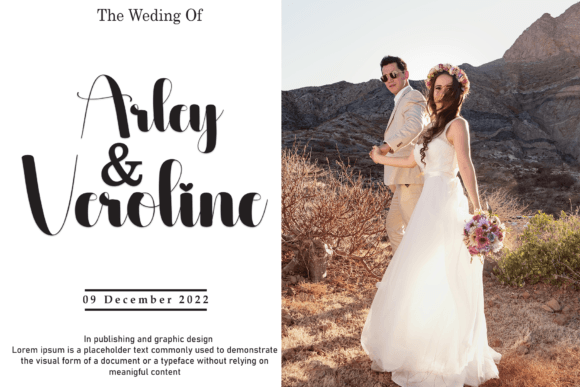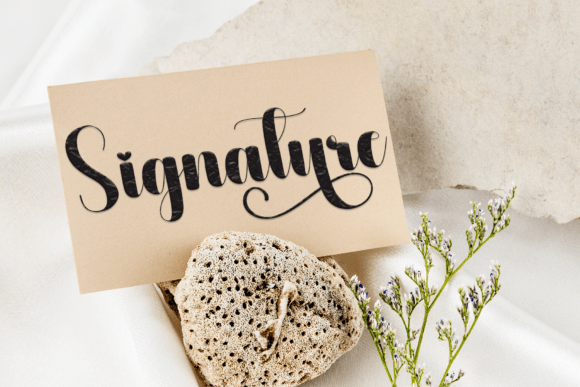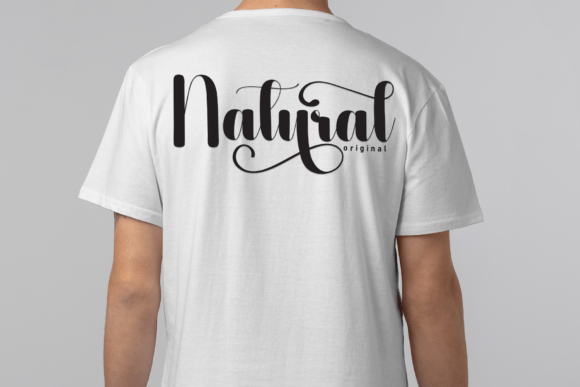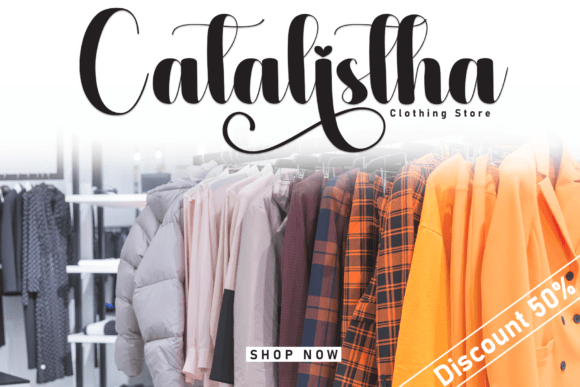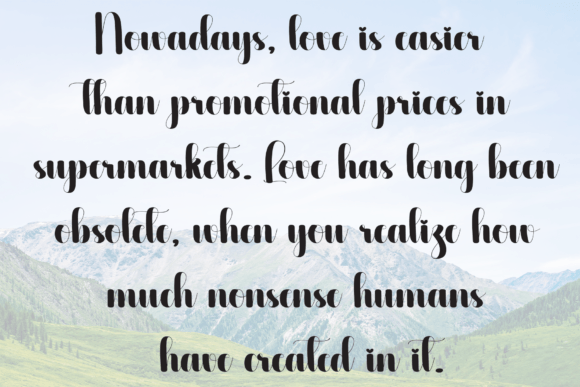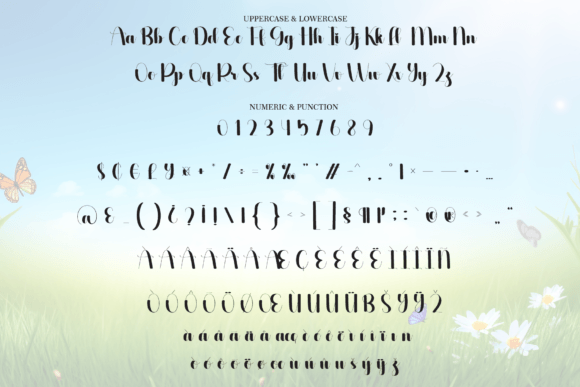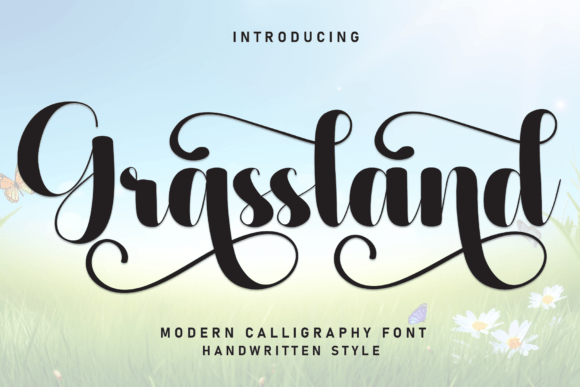
Discover the Elegance of Grassland Font: A Timeless Choice for Your Designs
Are you on the lookout for a font that adds a touch of elegance and sophistication to your projects? Look no further than the Grassland Font, a beautiful, flowing handwritten font that is sure to capture your heart. With its incredibly distinct and timeless style, Grassland Font is the perfect choice for designers and crafters who want to create spectacular designs that stand out from the crowd.
What is Grassland Font?
Grassland Font is a carefully crafted handwritten font that exudes elegance and refinement. Its flowing lines and curves create a sense of movement and fluidity, making it perfect for a wide range of design projects, from wedding invitations and branding materials to social media graphics and more. The font’s unique and timeless style is sure to add a touch of sophistication to any design, making it a great choice for designers who want to create something truly special.
Key Features of Grassland Font
So, what makes Grassland Font so special? Here are just a few of its key features:
- Elegant and Refined: Grassland Font is characterized by its elegant and refined lines, making it perfect for designs that require a touch of sophistication.
- Flowing Handwritten Style: The font’s flowing handwritten style creates a sense of movement and fluidity, making it perfect for designs that need to capture the eye.
- Distinct and Timeless: Grassland Font has an incredibly distinct and timeless style that is sure to make your designs stand out from the crowd.
- Highly Versatile: The font is highly versatile and can be used for a wide range of design projects, from wedding invitations and branding materials to social media graphics and more.
Why Choose Grassland Font?
So, why should you choose Grassland Font for your next design project? Here are just a few reasons:
- Adds a Touch of Elegance: Grassland Font adds a touch of elegance and sophistication to any design, making it perfect for projects that require a refined look.
- Easy to Read: The font is highly legible and easy to read, making it perfect for designs that require a clear and concise message.
- Unique and Memorable: Grassland Font has a unique and memorable style that is sure to make your designs stand out from the crowd.
- Supports Multiple Languages: The font supports multiple languages, making it a great choice for designers who work with clients from around the world.
How to Use Grassland Font in Your Designs
Using Grassland Font in your designs is easy. Here are a few tips to get you started:
- Pair it with Other Fonts: Grassland Font pairs well with other fonts, so don’t be afraid to experiment with different combinations.
- Use it for Headings and Titles: The font is perfect for headings and titles, where its elegant and refined lines can really shine.
- Add a Personal Touch: Use Grassland Font to add a personal touch to your designs, whether it’s a wedding invitation or a social media graphic.
In conclusion, Grassland Font is a beautiful, flowing handwritten font that is sure to add a touch of elegance and sophistication to your designs. With its incredibly distinct and timeless style, it’s the perfect choice for designers and crafters who want to create spectacular designs that stand out from the crowd. So why wait? Download Grassland Font today and start creating your own stunning designs!